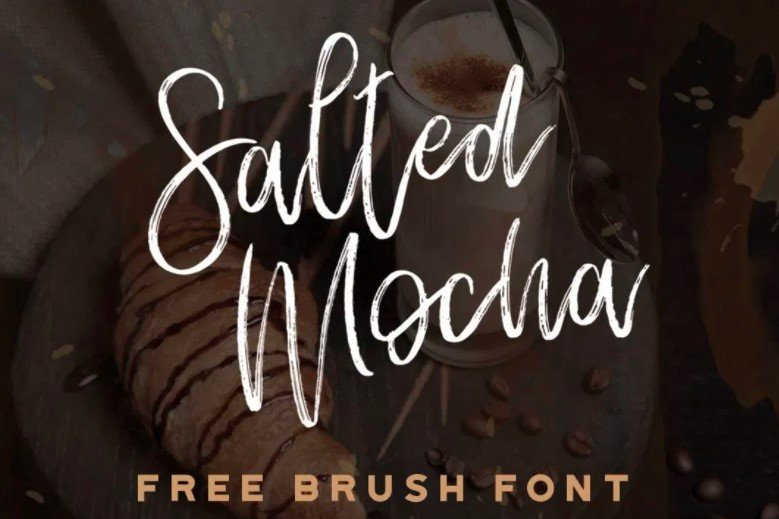
If you're a designer, you likely seek a typeface that is clear, easy to read, and recognizable. We're presenting the brushed typeface known as Salted Mocha Font, which encompasses all these qualities.
| Name | Salted Mocha Font |
| Style | Brush |
| Designer | Stephanie Arsenault |
The designer of this font suggests using this great typeface in making books titling, posters, banners, covers, geometric shapes, illustrations, and lots of other attractive projects. Also, the best way to use the font is to used the combination of kristen itc font for making awesome designing layouts by combining two fonts together.